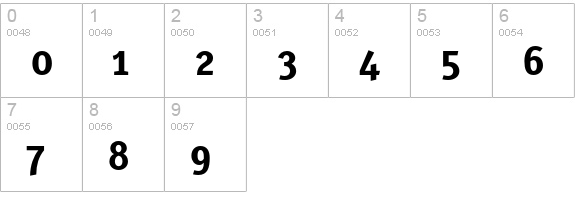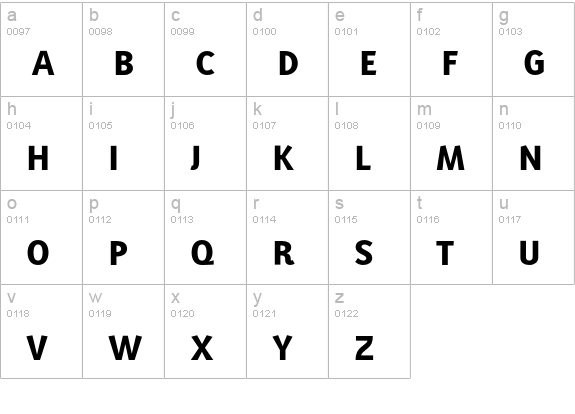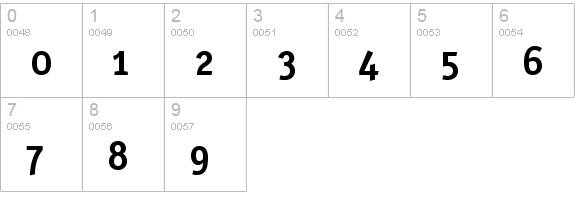
Karbid-BoldCaps font is a striking and bold typeface that will make a powerful statement in any design project. With its strong and sturdy letterforms, this font exudes confidence and strength. The uppercase characters are tall and commanding, with sharp edges and thick strokes that demand attention. This font is perfect for headlines, logos, posters, and any project that needs a bold and impactful look. Whether you're designing a rock band logo or creating a powerful poster for a protest, Karbid-BoldCaps font will deliver the impact you need. But what sets Karbid-BoldCaps font apart is that it is not only visually impressive, but it is also free! Yes, you heard it right. This font is freely available to download at FontsMarket.com. You can enhance your design projects without any cost, making it an excellent choice for designers on a budget. Downloading Karbid-BoldCaps font from FontsMarket.com is quick and easy. Simply visit the website, search for the font, and download it to your computer. With this font at your disposal, you'll have the freedom to create stunning designs without breaking the bank. So, why wait? Give your designs a bold and impactful touch with Karbid-BoldCaps font. Download it for free at FontsMarket.com and let your creativity shine.